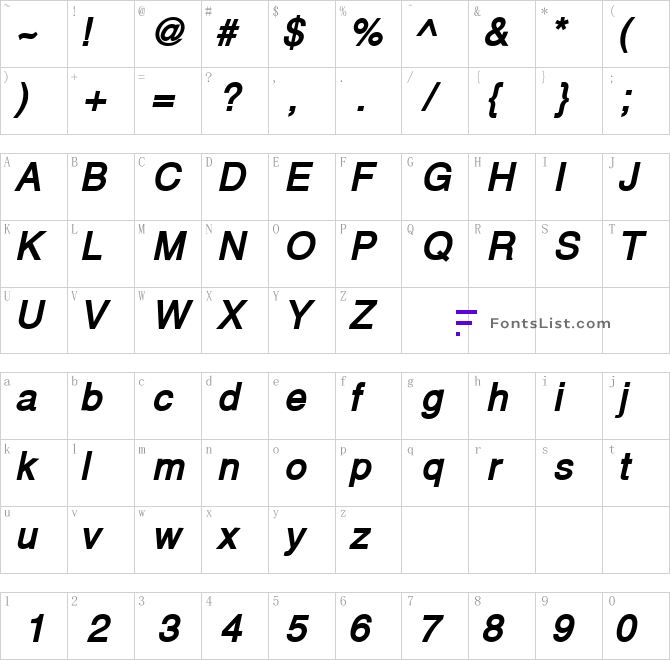
- Font Name:Alps
Alps-Bold-Italic.ttf is a very beautiful artistic font, Alps-Bold-Italic.ttf is widely used in the design and printing of various books and pictures,Alps-Bold-Italic.ttf has a strong visual impact,Alps-Bold-Italic.ttf is a commonly used font in newspapers, magazines and books, and is used in posters, e-commerce Poster design, store design, logo design, font design and other fields.Alps-Bold-Italic.